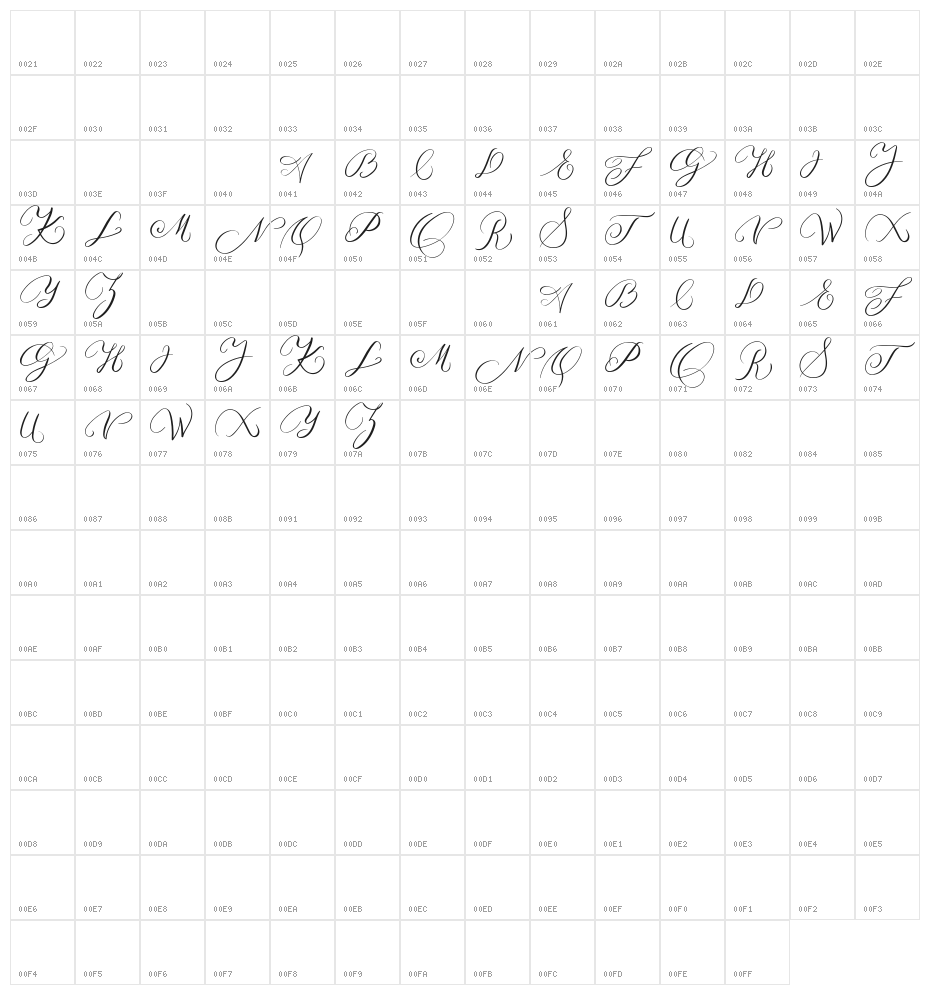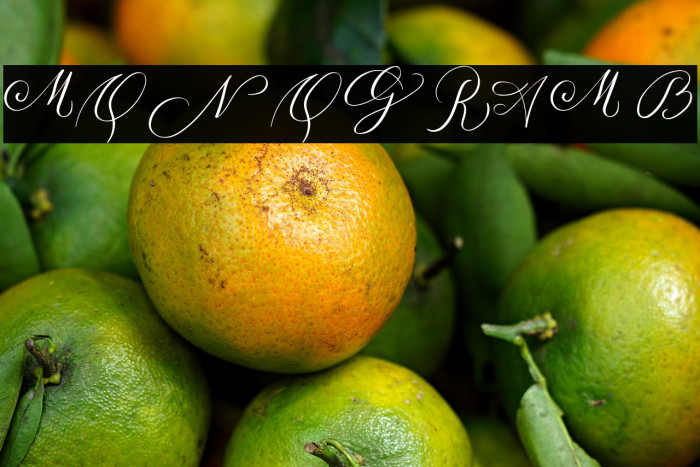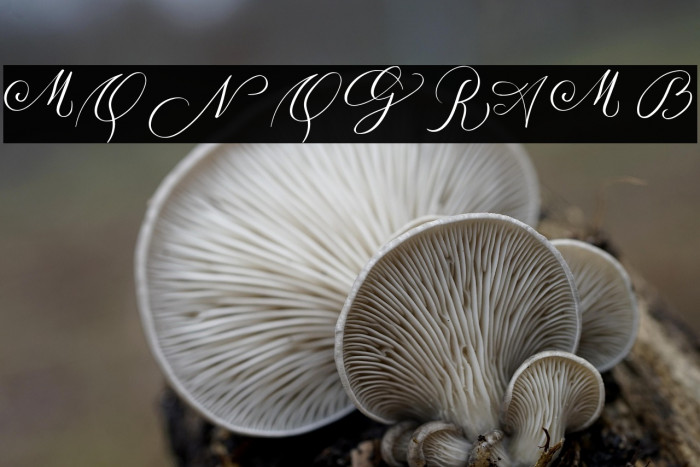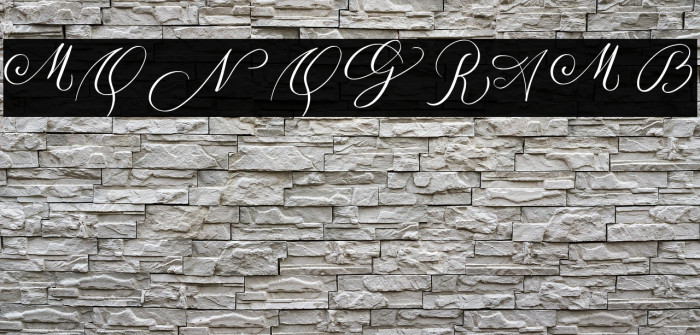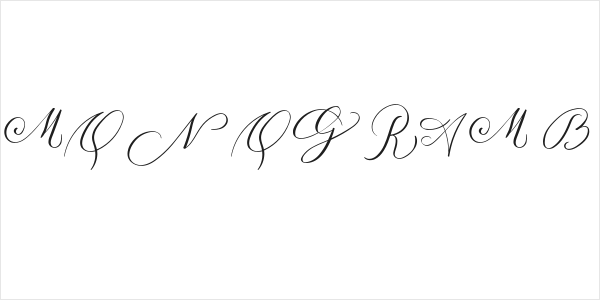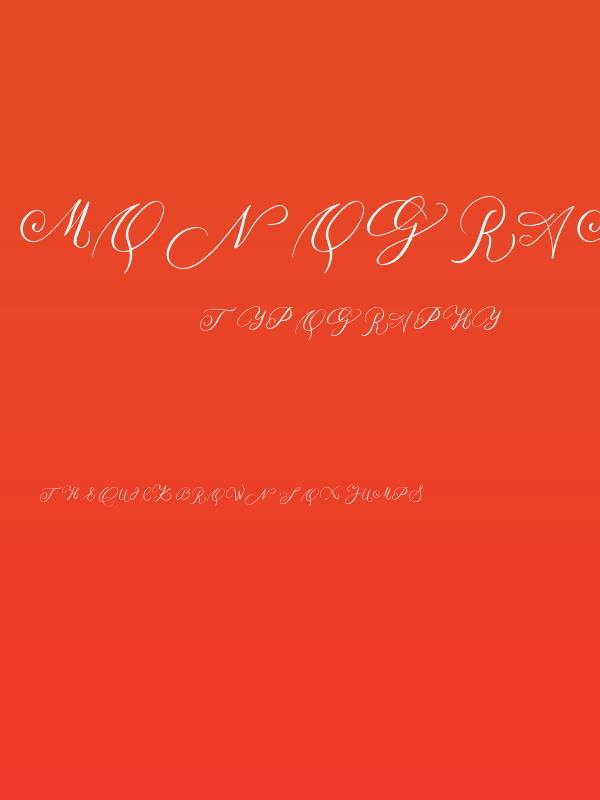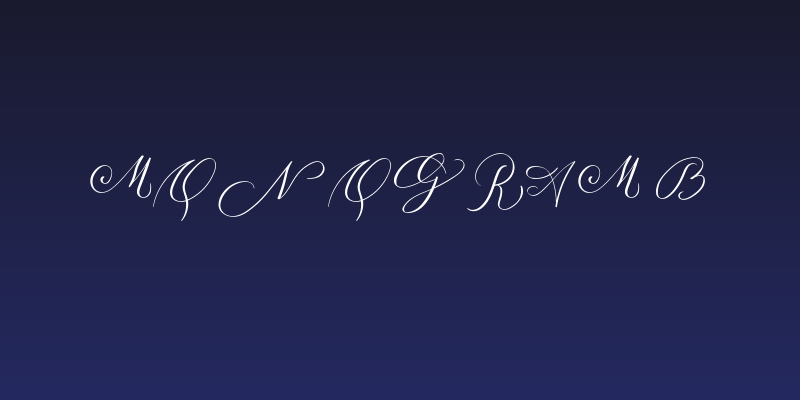
MONOGRAM B Font
MONOGRAM B Description
This elegant script font features intricate, flowing lines and ornate flourishes, creating a sense of sophistication and luxury. The characters are designed with high contrast between thick and thin strokes, enhancing their decorative appeal. Each letter is crafted with attention to detail, making it ideal for formal and upscale designs. The overall style is reminiscent of classic calligraphy, with a modern twist that adds a unique flair. This font is perfect for projects that require a touch of elegance and refinement, such as wedding invitations, luxury branding, and high-end product packaging.
Overall StyleElegant, Classic
Use CaseLogos, Invitations, Branding
Proposed ProjectsIdeal for wedding invitations, luxury branding, and high-end product packaging.